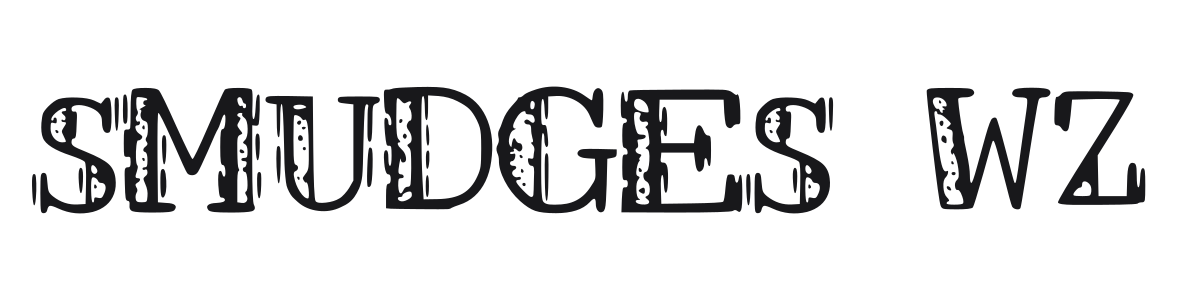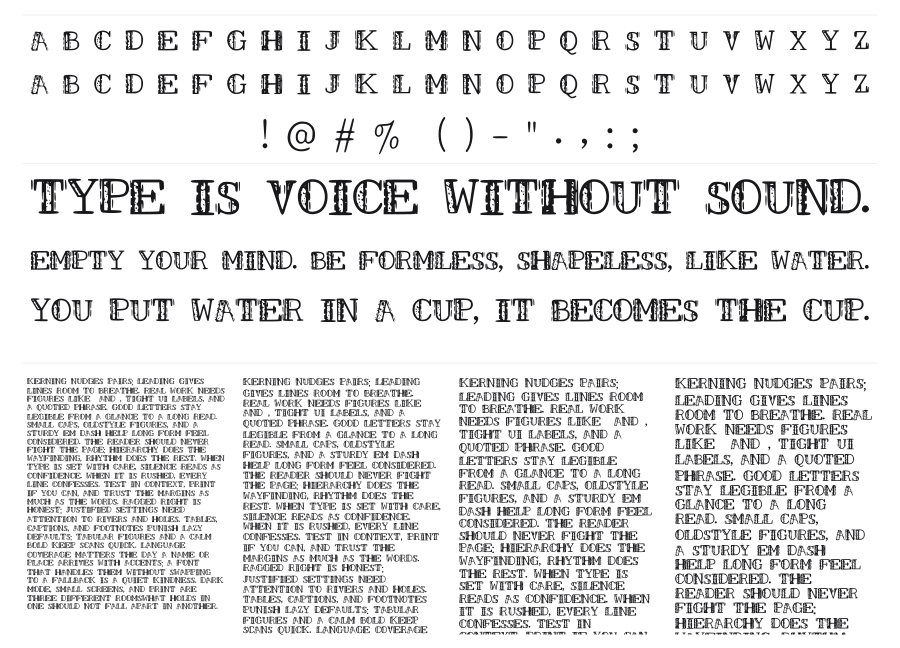
Smudges WZ
by Wendy Marvel
Smudges WZ is a bold, uppercase display face from Wendy Marvel with a heavily worn, ink-smudged texture that makes every letter look like it was stamped onto rough paper and left in the rain. The grunge quality feels authentic rather than artificially distressed, with enough weight behind the letterforms to hold up at poster sizes. Built for headlines and short-form text where you want something that looks weathered and physical.